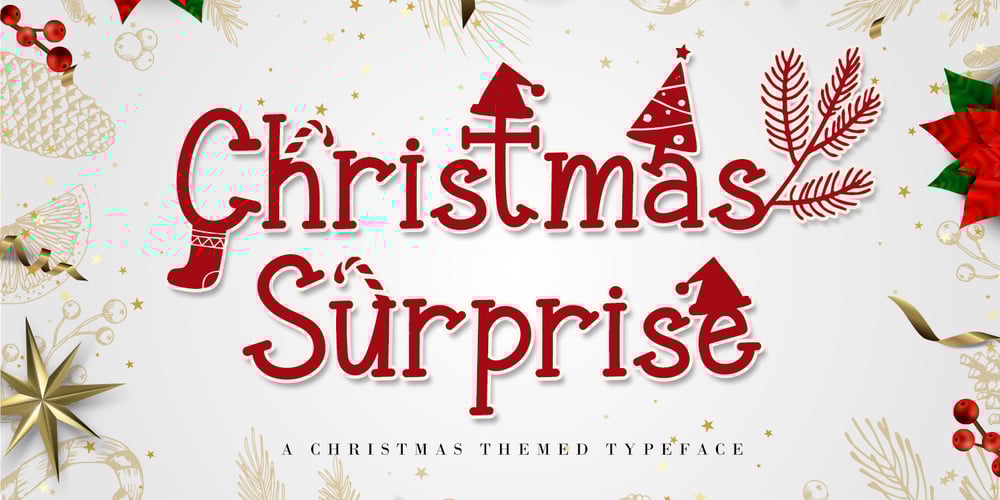
Christmas Surprise Font Family was designed by Agung Eko Nugroho and published by AEN Creative Studio. Christmas Surprise contains 2 styles and family package options. Christmas Surprise is a joyful and festive display font. It is ideal for holiday-themed greeting cards and for any crafting project so add this font to your designs and make them come alive! This font is PUA encoded which means you can access all of the glyphs and swashes with ease!